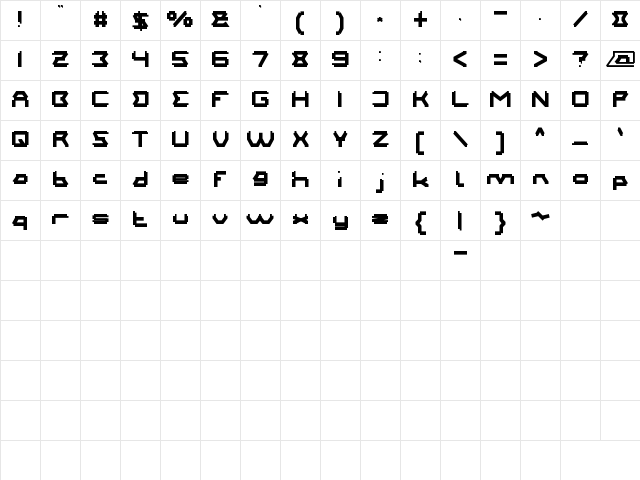
Complete MOTHER FATHER Regular glyph index. Displaying only characters natively supported by MOTHER FATHER Regular font.
MOTHER FATHER is a composed and adaptable typeface that performs quietly and consistently across a wide range of design contexts.